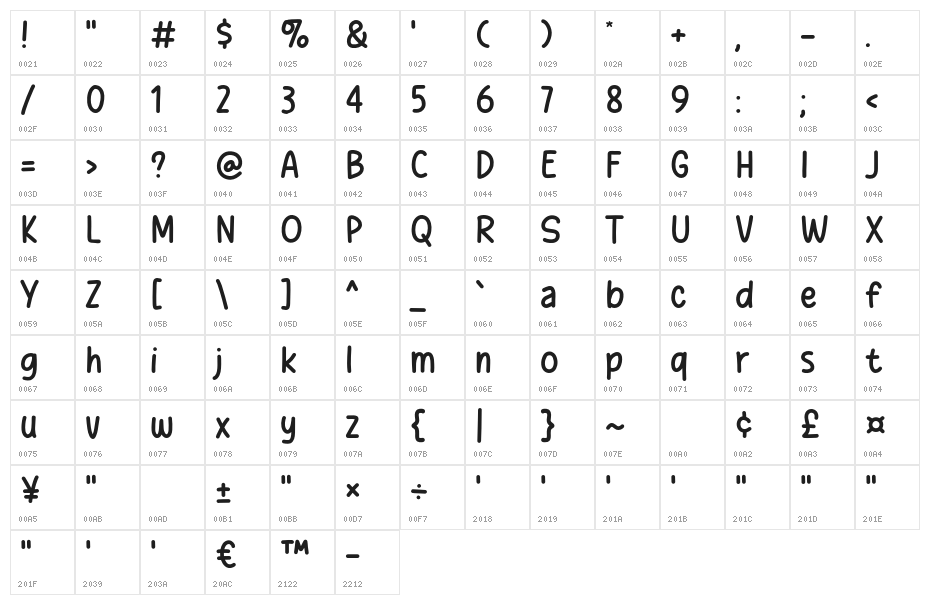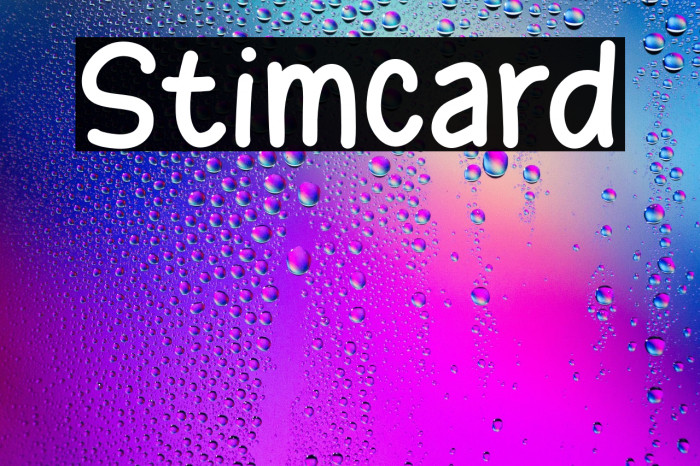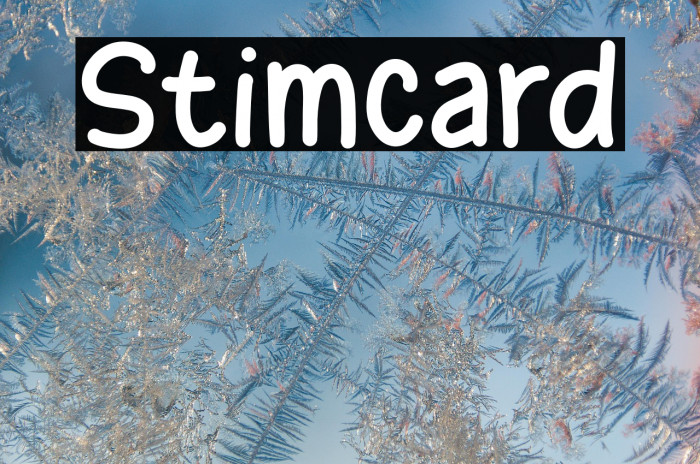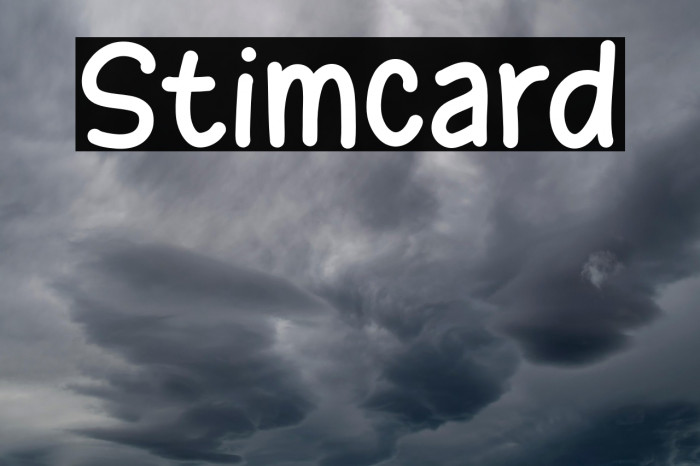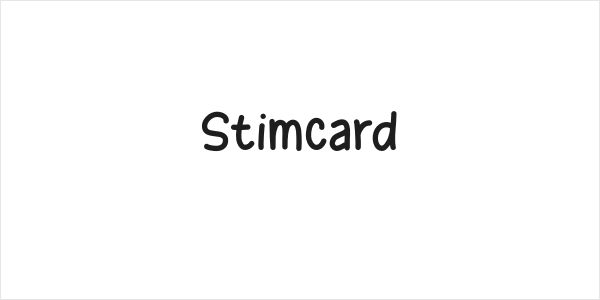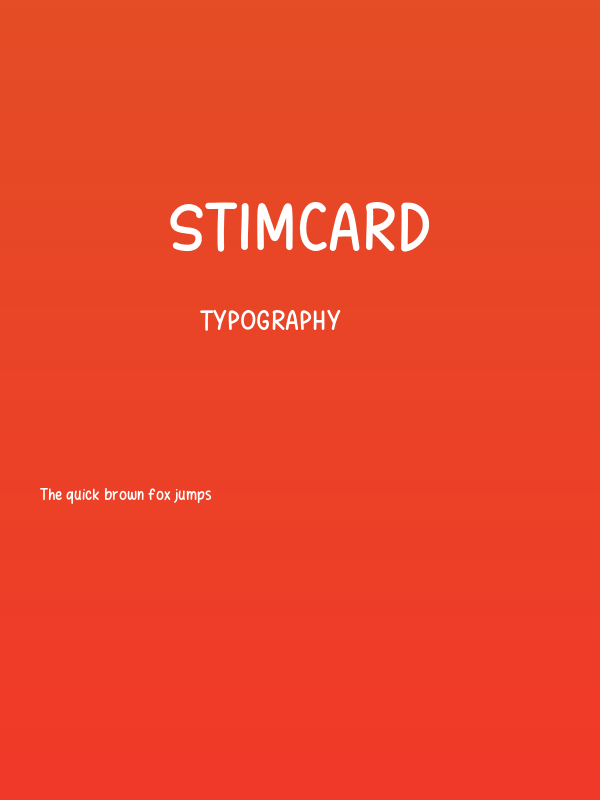
Stimcard Font
Stimcard Description
This font features a playful and rounded style with smooth curves and a friendly appearance. The characters are evenly spaced, providing a balanced and approachable look. The letters have a consistent stroke width, contributing to a uniform and cohesive design. This font's casual and informal nature makes it suitable for projects that require a touch of warmth and personality. The numerals and special characters maintain the same rounded and inviting style, ensuring consistency across all text elements.
| Overall Style | Casual |
| Use Case | Headlines, Logos, Informal Text |
| Proposed Projects | Ideal for children's books, playful branding, casual invitations, and social media graphics. |